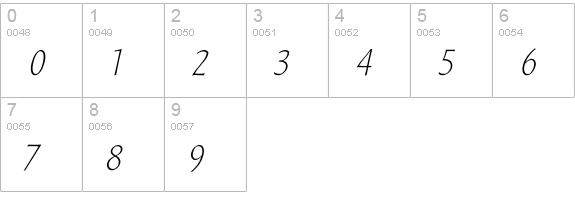
SamSans-ThinItalic Font Details
Introducing SamSans-ThinItalic, a stunningly elegant font that offers a perfect blend of modernity and sophistication. With its sleek and slender appearance, this font is bound to captivate and mesmerize any design project it is applied to. SamSans-ThinItalic effortlessly combines thin, delicate lines with a subtle italic slant, resulting in a typography masterpiece that exudes grace and refinement. Whether it's for a professional presentation, a creative logo, or a stylish branding project, this font adds a touch of elegance and finesse to any design. But what makes SamSans-ThinItalic truly remarkable is that it is not only visually stunning but also incredibly versatile. Its clean and crisp lines make it suitable for a wide range of projects, from sleek corporate designs to artistic endeavors. It effortlessly adapts to various styles and contexts, making it the go-to font for designers looking to create a lasting impression. And the best part is, SamSans-ThinItalic is available for free! Yes, you read that right. This exceptional font can be freely downloaded from FontsMarket.com, a trusted source for high-quality fonts. Now, you can enhance your designs without worrying about breaking the bank. So, why wait? Elevate your design projects to new heights with SamSans-ThinItalic. Download it for free at FontsMarket.com and unleash your creativity with this exquisite font that blends modernity, elegance, and versatility like no other.